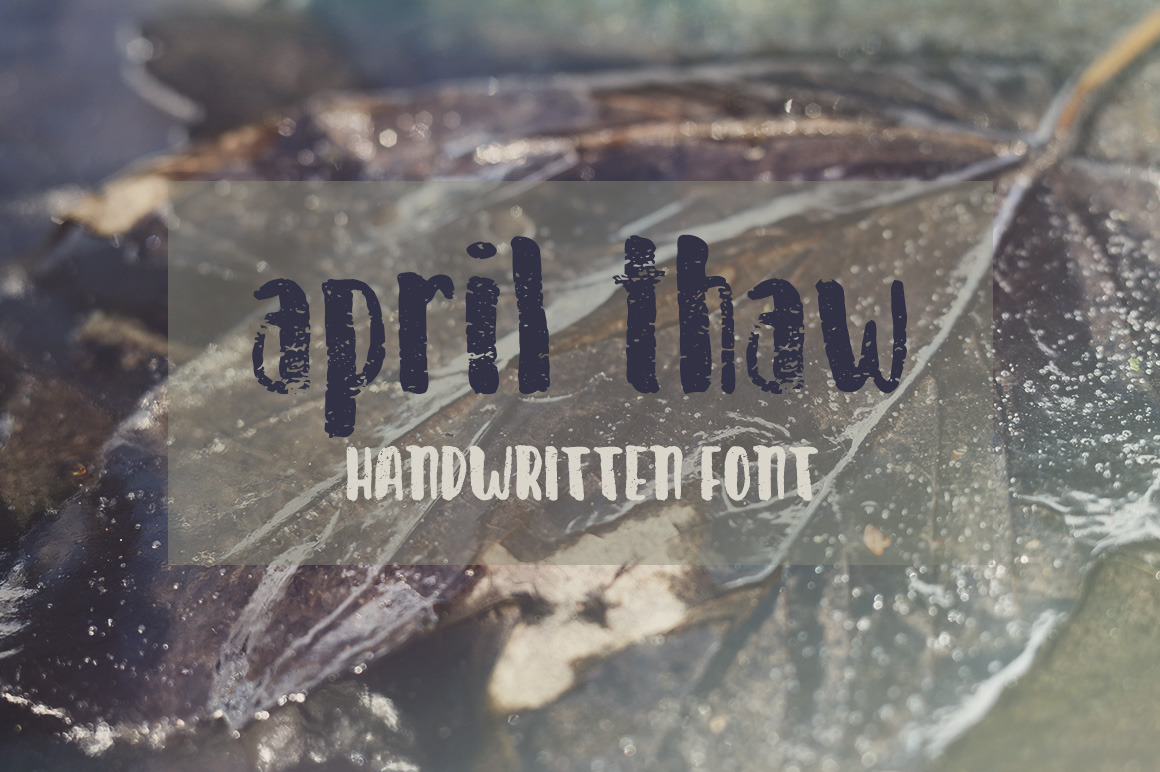
April Thaw Font
Introducing April Thaw, a handmade textured font! This font is easy to use, and it's bold, rough texture makes it exceptional for chalkboard use! This new font contains both upper and lowercase so that you can combine to find your own perfect look.